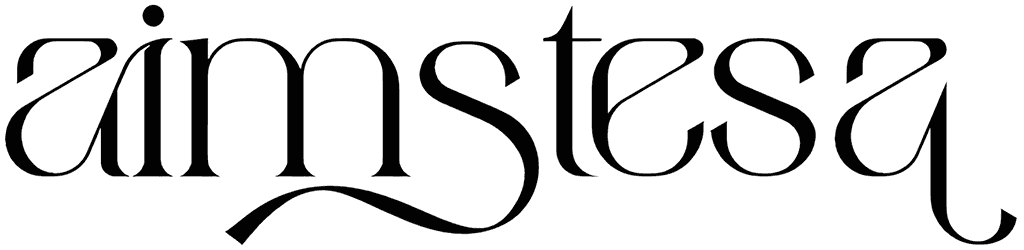
The Lesley font makes it simple to give your digital artwork a natural appearance without sacrificing professionalism. This feminine font is frequently used in commercials, letters, invitations, and greeting cards due to the personal touch it brings.